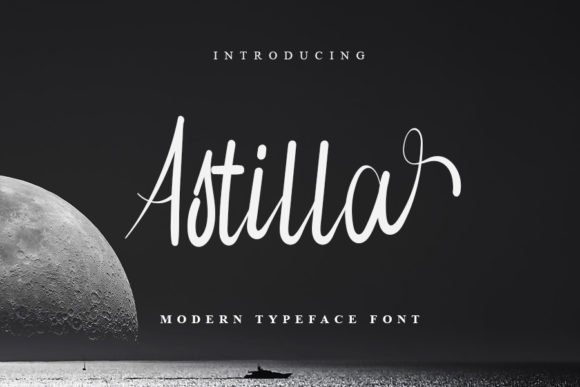
Dive into the world of enchanting designs with the Astilla Font, a masterpiece crafted by NYA Letter to add a touch of elegance and handwritten charm to your creative endeavors. Astilla, belonging to the remarkable script font family, is not just a font; it's an artistic brushstroke that breathes life into your words, transforming them into captivating expressions of your imagination. Its simple, natural style is more than just a visual appeal; it's an invitation to connect with your audience on a deeper level.
With Astilla, you're not limited to ordinary typography; you're embarking on a journey of creative exploration. Whether you're designing social media posts, crafting visually stunning websites, creating eye-catching flyers, or sending out heartfelt invitations, Astilla becomes your trusted companion, adding a personal touch that captivates and engages. It's the perfect choice for those seeking to make a lasting impression, to leave an indelible mark on the hearts and minds of their audience.
Astilla is a font not just for designers, it's a font for dreamers, for those who see the world as their canvas and are eager to paint their dreams into reality. It's a font that speaks to the artist within, encouraging them to break free from the mundane and embrace the extraordinary. With its effortless flow and organic curves, Astilla is a breath of fresh air in a world of digital uniformity, a reminder that beauty lies in the imperfections, in the human touch that makes every stroke unique.
So, whether you're a seasoned designer seeking to elevate your work or a creative enthusiast looking to make your mark, Astilla is your perfect font companion. Let its natural charm infuse your designs with a sense of warmth and authenticity, allowing your words to dance with grace and your ideas to shine brighter than ever before. Astilla isn't just a font; it's an experience, a journey into the realm of captivating design, where your creativity knows no bounds. Embrace the magic of Astilla today and watch your designs transform into captivating masterpieces.